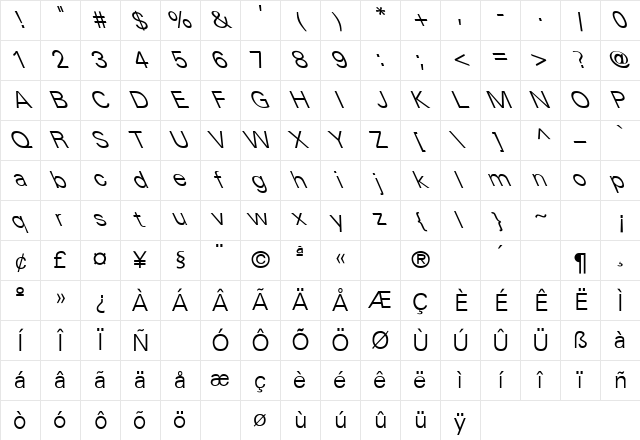
Univers-Light-Normal Leftis Regular Free Font
Univers-Light-Normal Leftis Regular
Design Context for Univers-Light-Normal Leftis
Univers-Light-Normal Leftis is a composed and adaptable typeface that performs quietly and consistently across a wide range of design contexts. Its slender proportions lend an understated elegance to any composition.